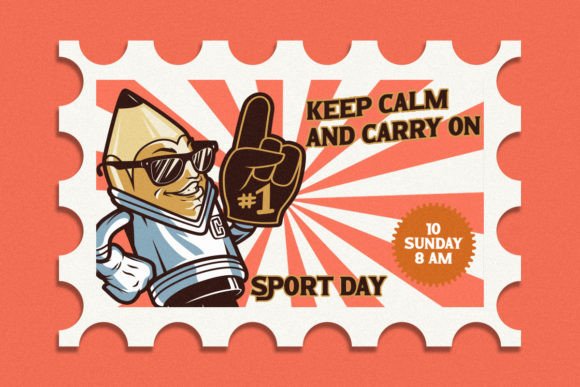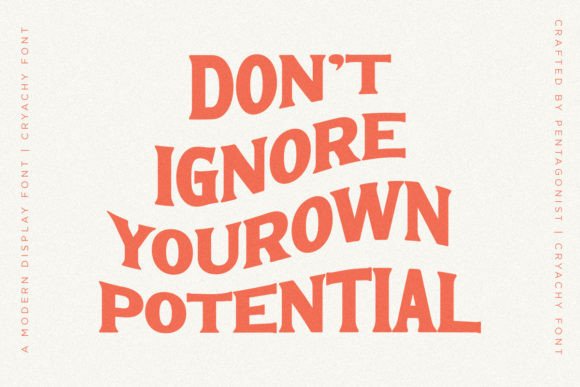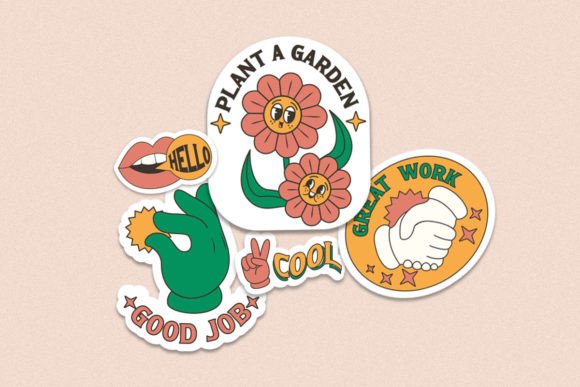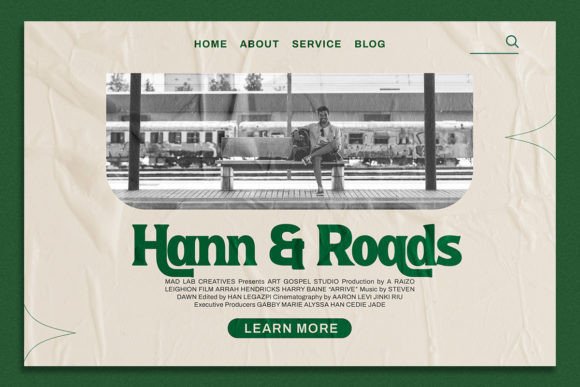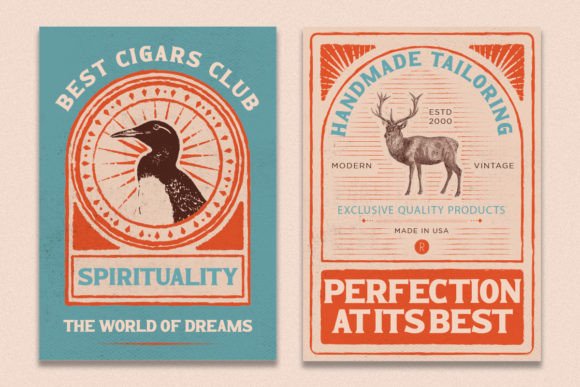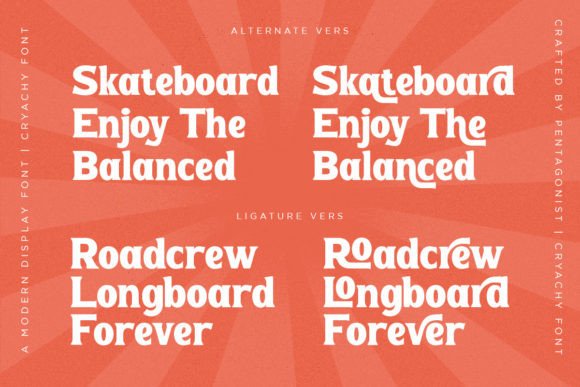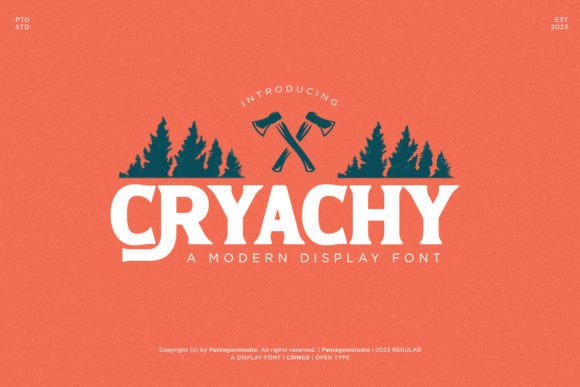
Introducing Cryachy Font: The Epitome of Modern Design
In the realm of typography, a new star has emerged, captivating the attention of designers and crafters alike. Meet Cryachy, a striking and contemporary display font that is redefining the landscape of modern design. With its clean lines, geometric shapes, and sharp angles, Cryachy exudes a bold and edgy feel, making it the perfect choice for those who dare to be different.
The Birth of a New Design Era
Cryachy is more than just a font – it’s an experience. Its unique blend of modernity and sophistication creates a visual identity that is both captivating and memorable. Whether you’re a seasoned designer or a crafty enthusiast, Cryachy is sure to inspire you to push the boundaries of your creativity. From bold headlines to eye-catching social media graphics, this font is designed to make a statement.
Key Features of Cryachy Font
- Clean Lines and Geometric Shapes: Cryachy’s design is characterized by its clean lines and geometric shapes, giving it a sleek and modern look that is perfect for contemporary branding and advertising.
- Sharp Angles and Bold Edges: The font’s sharp angles and bold edges add a touch of edginess, making it ideal for designers who want to create a striking visual impact.
- High Versatility: Cryachy is a highly versatile font that can be used for a wide range of design applications, from logos and headlines to social media graphics and packaging.
- Ease of Readability: Despite its bold and edgy feel, Cryachy remains highly readable, even at smaller font sizes, making it perfect for body text and captions.
Perfect for Modern Branding and Advertising
In today’s fast-paced digital landscape, brands need to stand out from the crowd to capture attention. Cryachy font is designed to help brands achieve just that. Its modern and edgy aesthetic makes it perfect for:
- Logos and Branding: Create a lasting impression with a bold and memorable logo that reflects your brand’s personality.
- Advertising and Marketing: Grab attention with eye-catching headlines and ad copy that demand to be noticed.
- Social Media Graphics: Elevate your social media presence with striking graphics that showcase your brand’s style and attitude.
What Sets Cryachy Apart
In a sea of fonts, Cryachy stands out for its unique combination of style, versatility, and functionality. Here are just a few reasons why Cryachy is a cut above the rest:
- Unique Design: Cryachy’s geometric shapes and sharp angles create a distinctive look that is both modern and memorable.
- Highly Customizable: With a range of weights and styles, Cryachy can be tailored to suit any design project or brand identity.
Get Ready to Unlock Your Creative Potential
| Author | Pentagonistudio |
In conclusion, Cryachy font is a game-changer for designers and crafters who want to make a bold statement with their designs. Its unique blend of modernity, style, and versatility makes it the perfect choice for any design project that demands attention. With Cryachy, you can unlock your creative potential and take your designs to the next level.